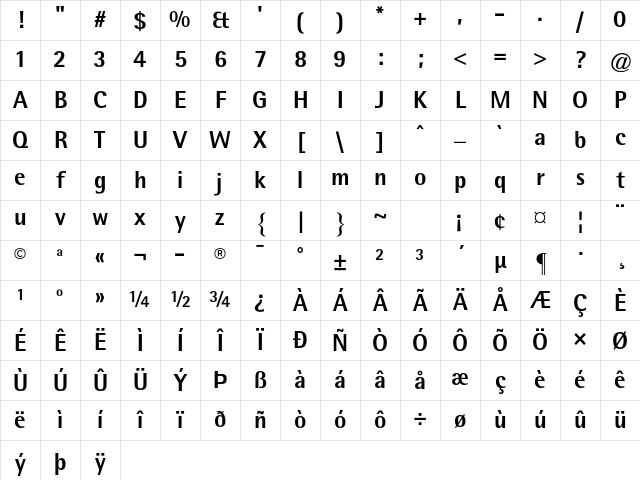
Complete Rotis Semi Sans Std 75 Extra Bold glyph index. Displaying only characters natively supported by Rotis Semi Sans Std 75 Extra Bold font.
Rotis Semi Sans Std is a composed and adaptable typeface that performs quietly and consistently across a wide range of design contexts. Its bold stroke weight gives it real presence on the page.